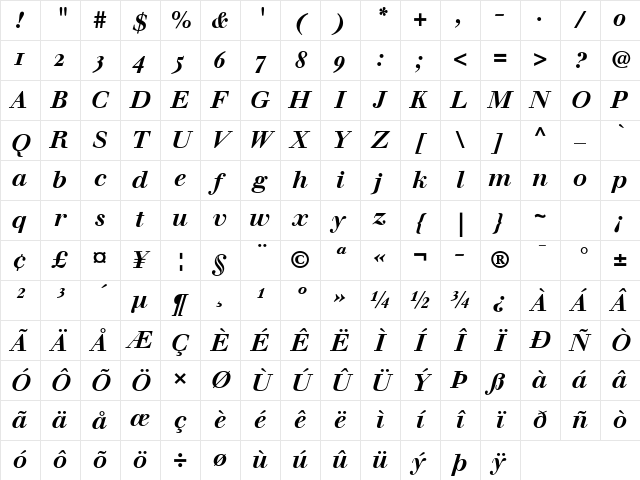
Walbaum RomanOsF Bold Italic Free Font
Design Context for Walbaum RomanOsF
Walbaum RomanOsF is a composed and adaptable typeface that performs quietly and consistently across a wide range of design contexts. The slanted form adds forward momentum and visual energy. Its bold stroke weight gives it real presence on the page.